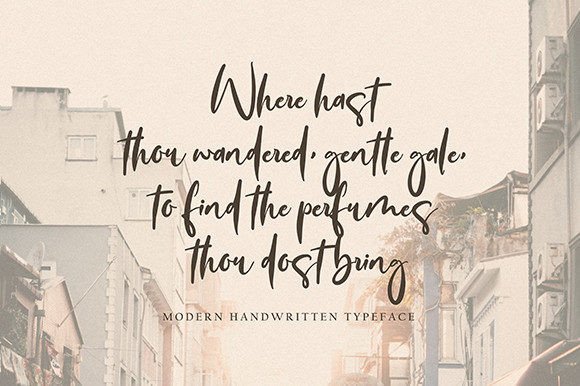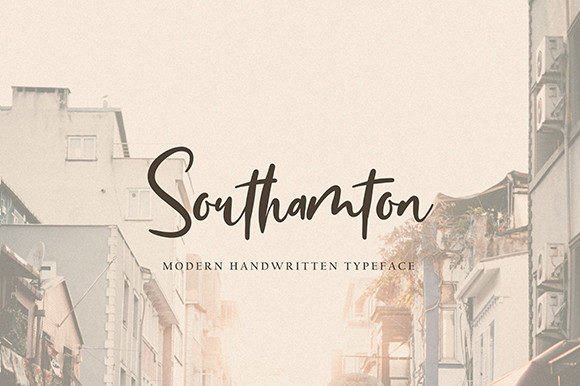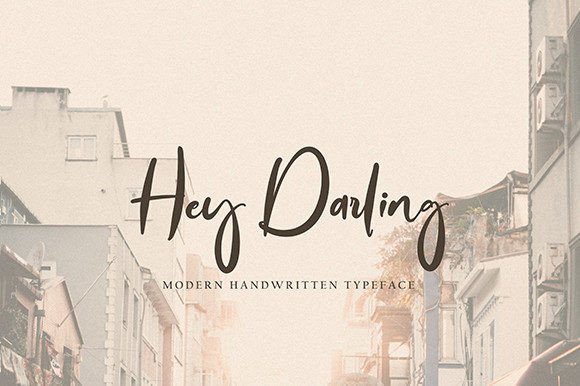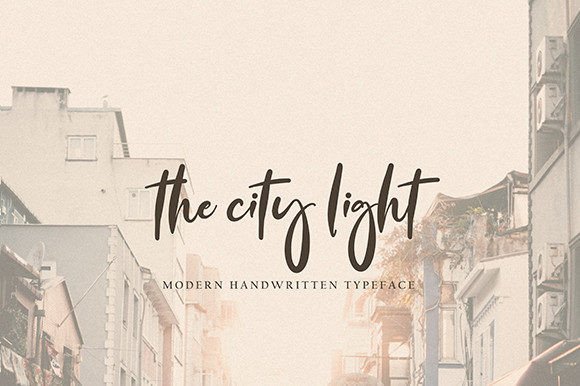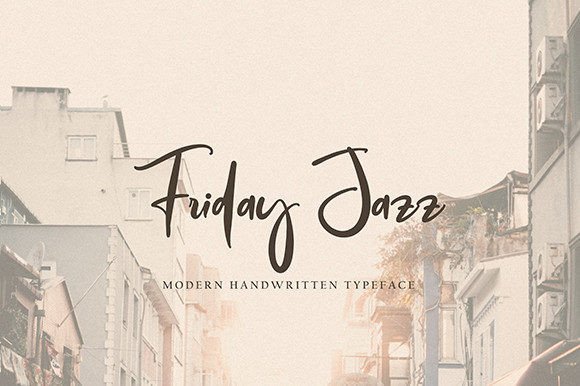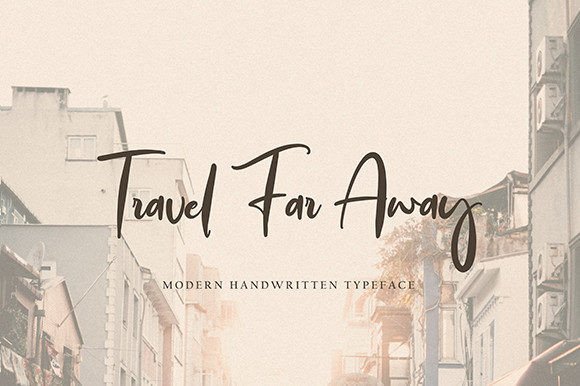
Introduction to Glooria Baby Font
Glooria Baby feels equally charming and elegant.
It looks stunning on wedding invitations, thank you cards, quotes, greeting cards, logos, business cards, and every other design which needs a handwritten touch .
Key Features of Glooria Baby Font